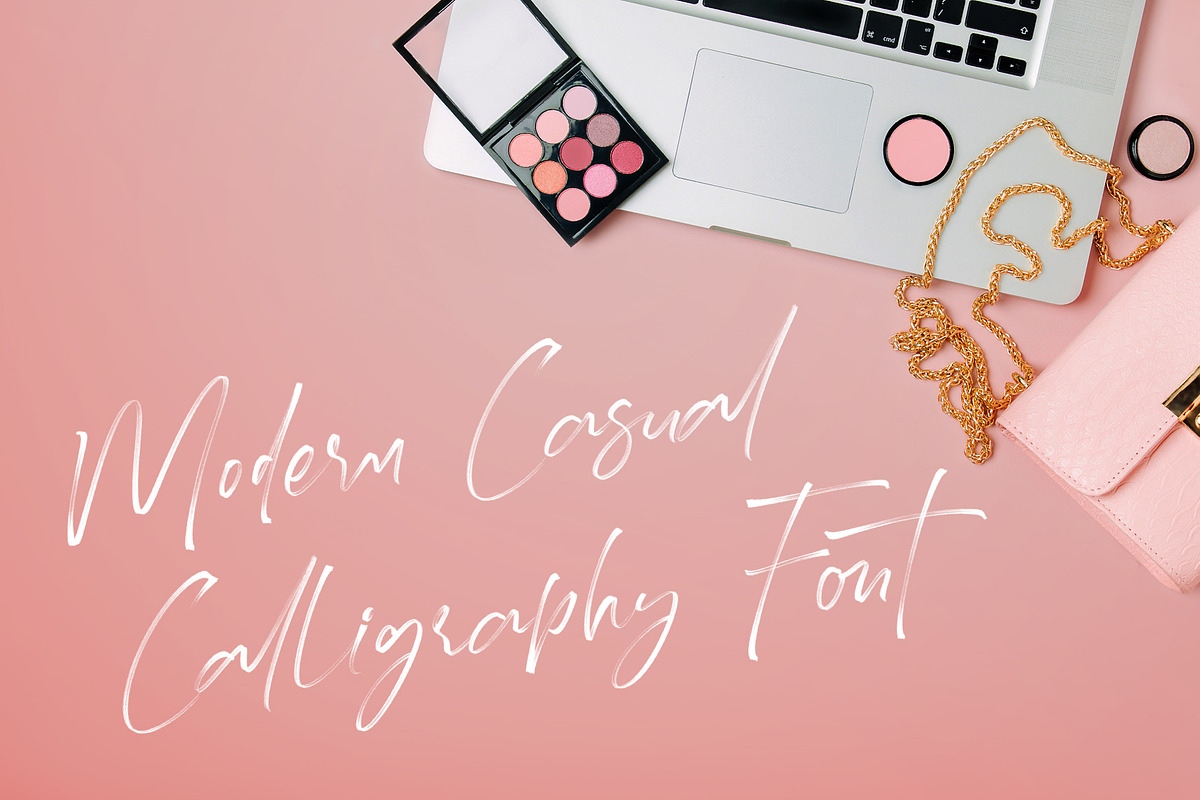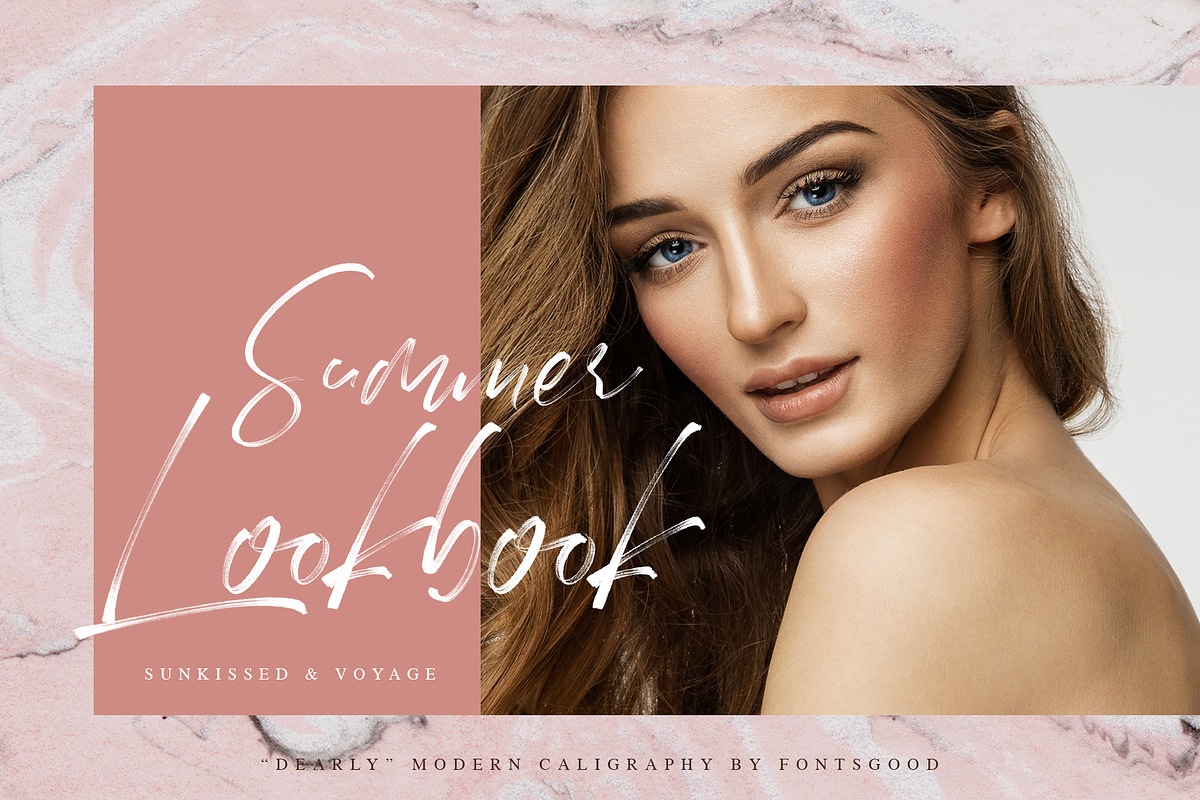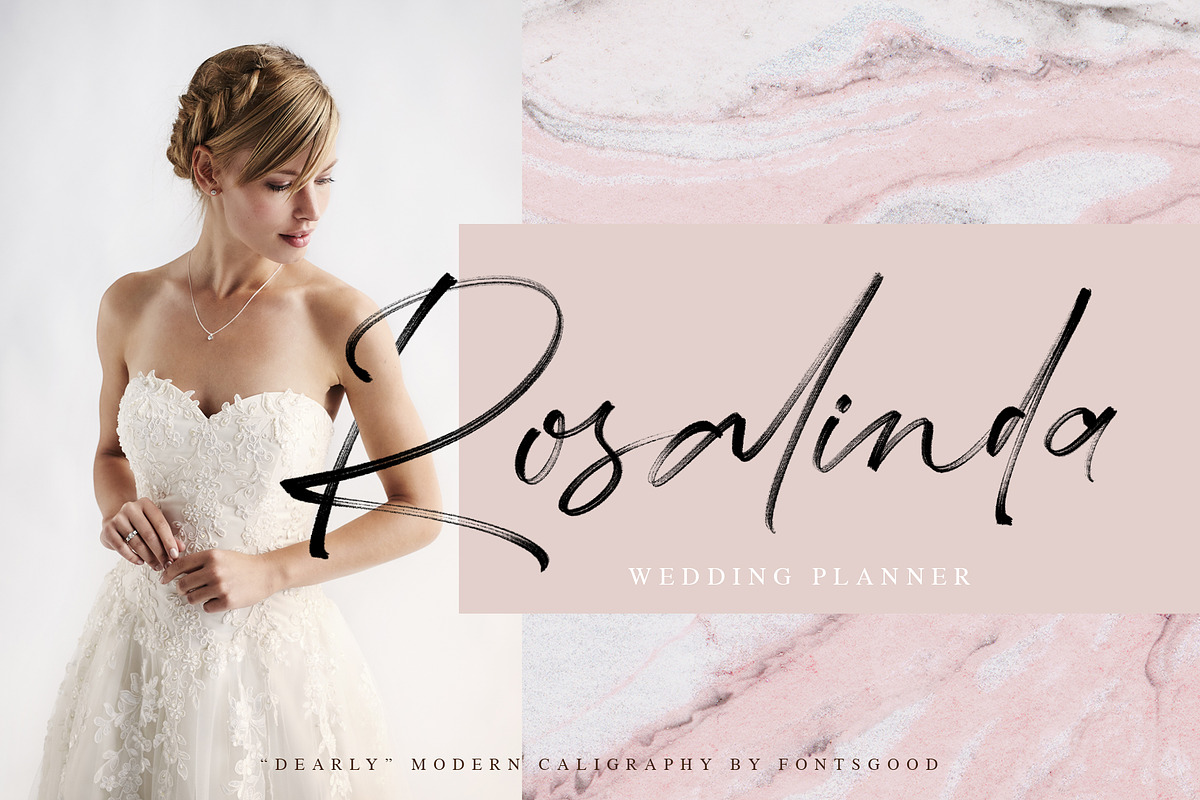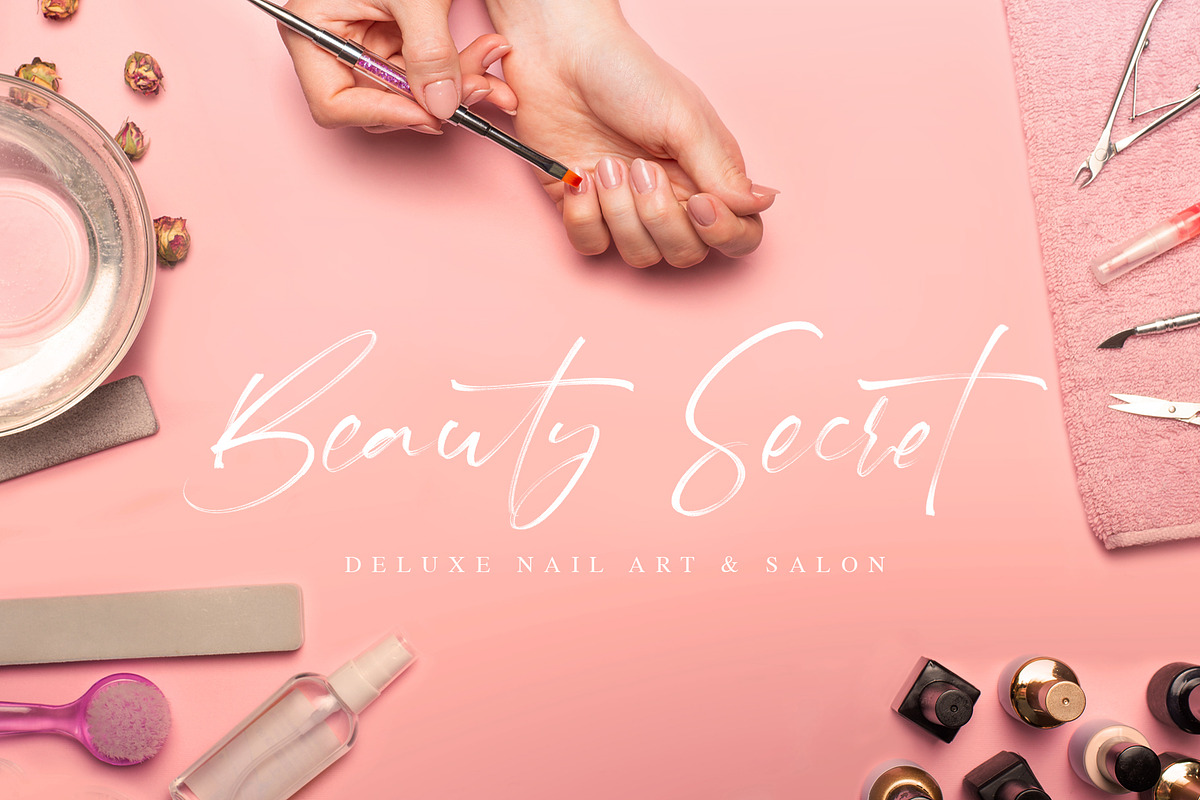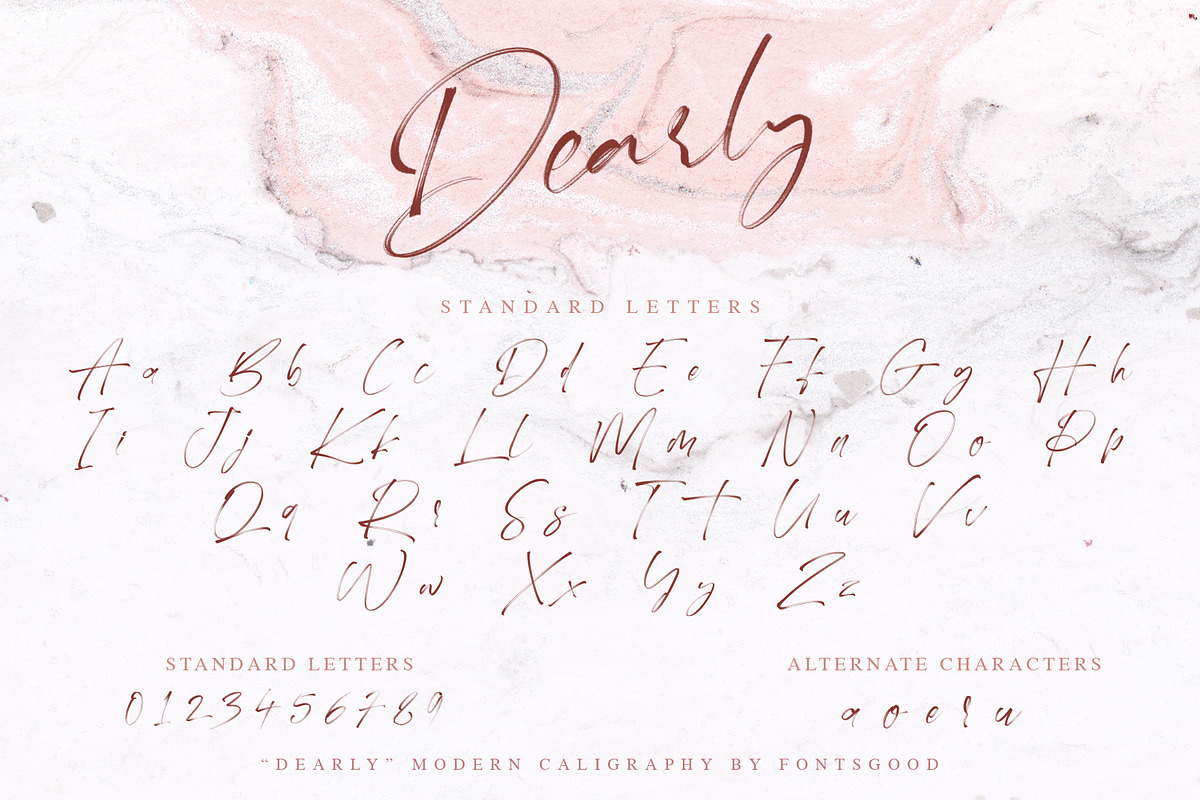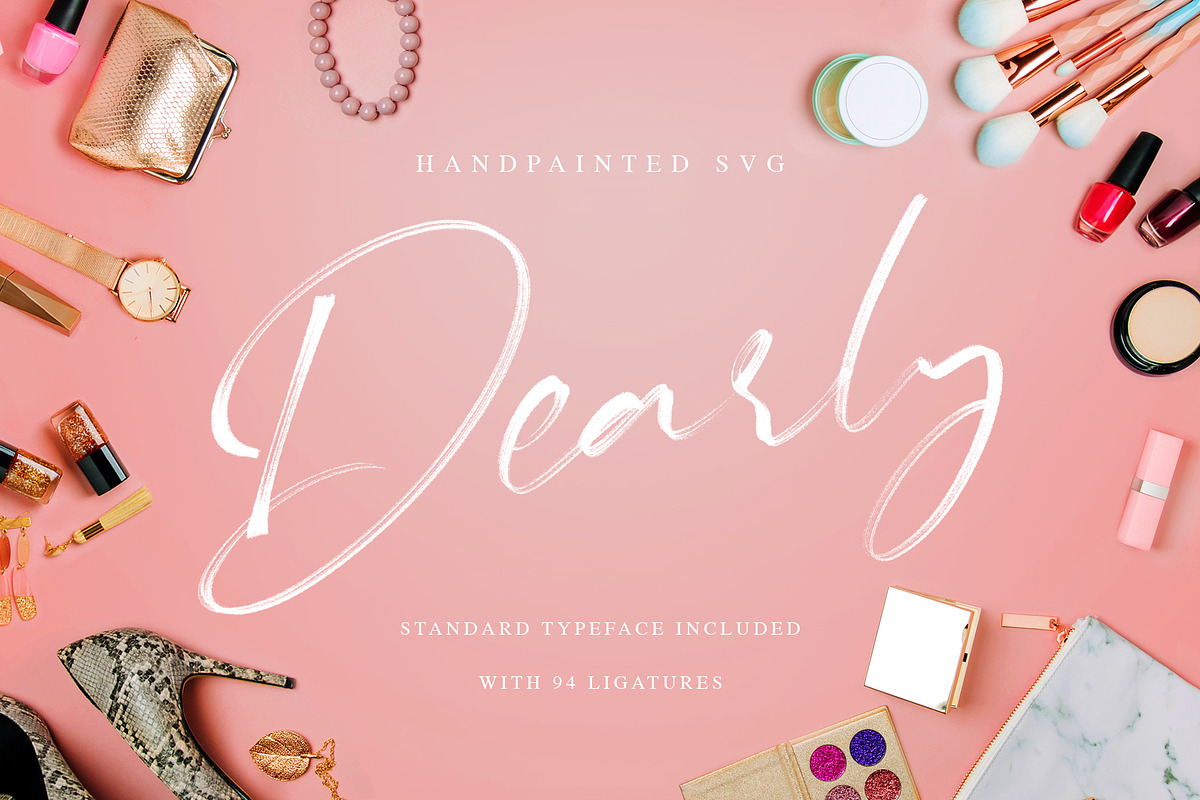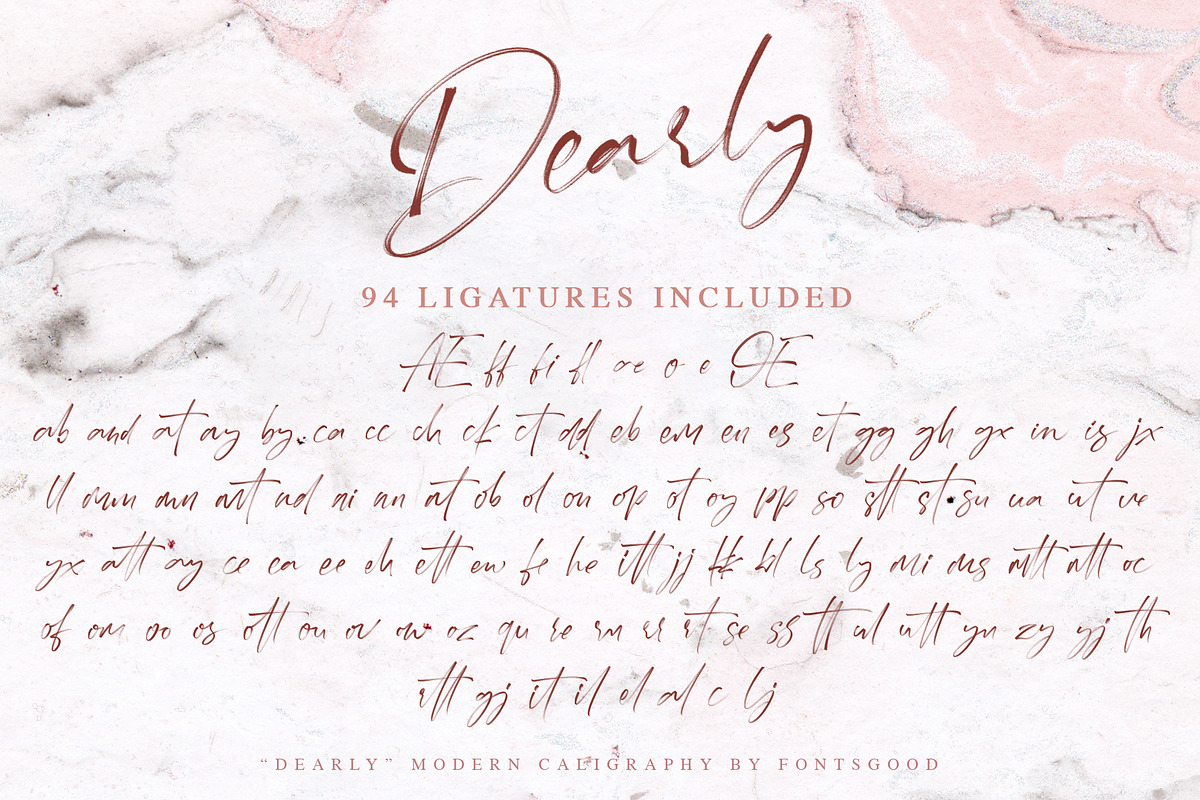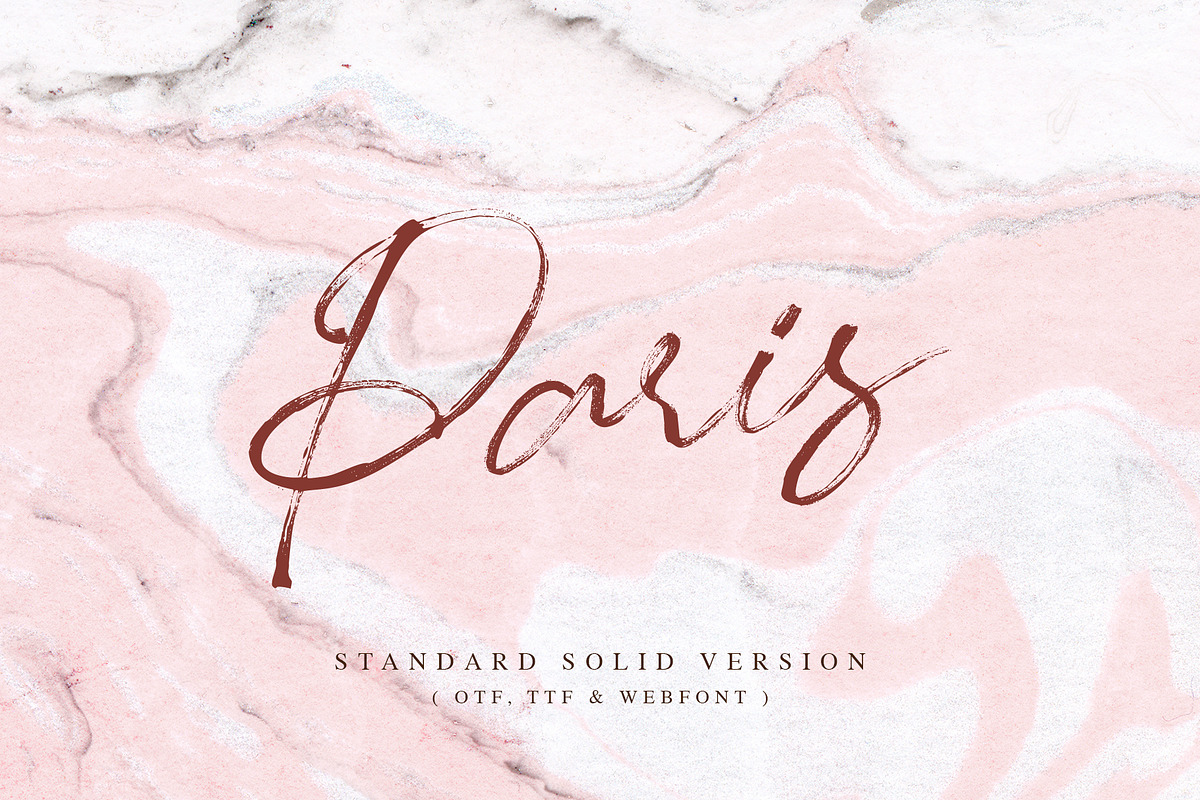
Dearly SVG Font
Have you ever imagine how easy to have your own hand painted name or logo, put it everywhere; own shop logo, your insta feed or story or probably make it as your own signature/icon on the paper.
TADAAAA!!! We are pleased to introduce “Dearly” SVG font. A modern casual calligraphy font, painted with traditional ink to bring very natural art only for you honey!
Also don’ t forget to check all the 94 ligatures on the preview that build to make the sentence look more blended each other.